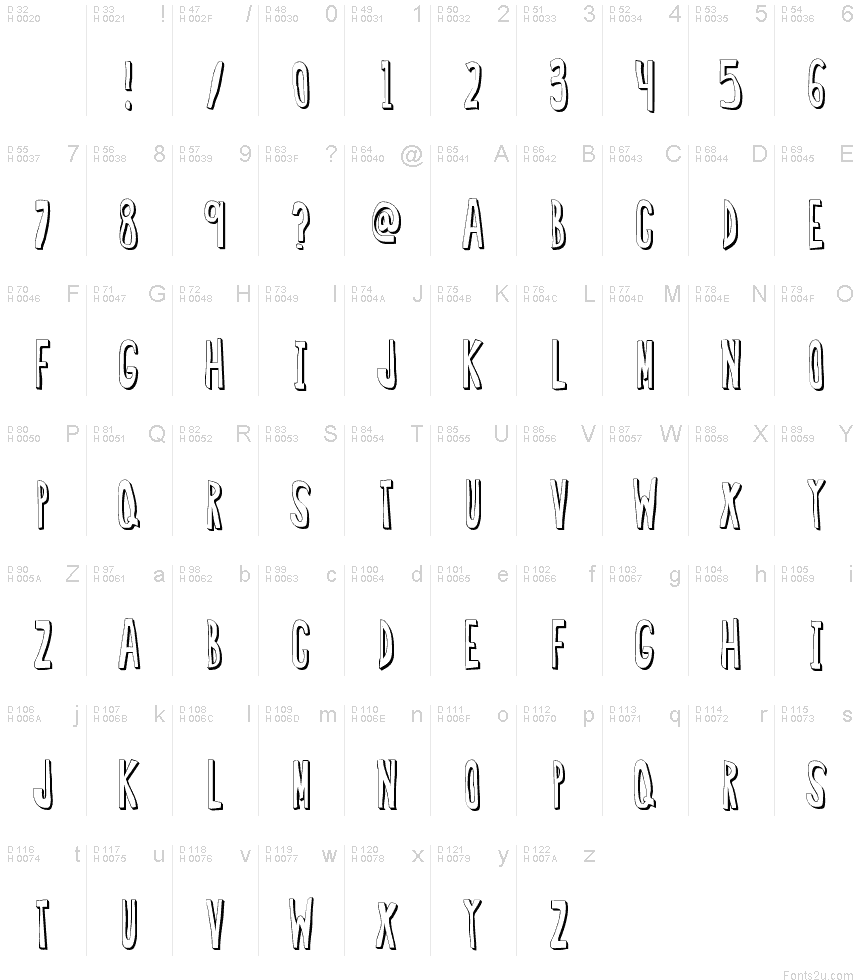
Regularfont Two by Skyhaven is a free cartoon 3D display font with tall, narrow letters and an exaggerated cut-paper silhouette. Uneven contours and a hard offset shadow give the lettering a hand-cut, slightly unruly construction that feels closer to comic art than polished dimensional type.
Posters are its strongest medium, especially for comedy events, youth entertainment, and offbeat music promotions where the stretched shapes can become part of the artwork. The same crooked outlines also suit snack packaging and playful merchandise, turning product names into compact illustrated signs.